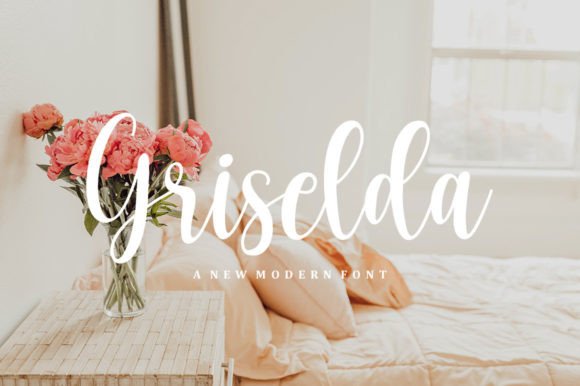
Behold Griselda, a font family fashioned from the fingertips of Outlaw Studio, where elegance and allure intertwine to give life to this script masterpiece. Griselda is more than just letters; it's an expression of your unique artistic vision, an emblem of creativity unbound. Experience the joy of personalization with Griselda, a font style inspired by the beautiful symphony of handwriting.
With Griselda at your command, every word dances across the page, leaving behind a trail of sophistication and charm. Its strokes are a symphony, each curve and line a testament to the beauty of the human hand. Unleash your creativity and find harmony in the nuances of this remarkable font.
Griselda's versatility extends beyond words. It is a font designed for the visual storyteller, the one who seeks to capture the essence of a moment through the fusion of imagery and text. Whether it's a wall display that demands attention or a wedding invitation that promises elegance, Griselda performs flawlessly. Its essence is uniquely suited for social media posts, logos, advertisements, product packaging, and product designs.
Griselda is not merely a font; it's a tool to elevate the ordinary into the extraordinary. Its allure extends to labels, photography, watermarks, invitations, and stationery. It's a font that adapts seamlessly, embracing the essence of each project it adorns, enhancing its impact with an undeniable grace.
Embrace the art of handwritten expression with Griselda, where the beauty of human touch blends seamlessly with the precision of digital design. Its charm is undeniable, its versatility unparalleled. Let Griselda be your muse, your companion in the pursuit of exceptional creativity.